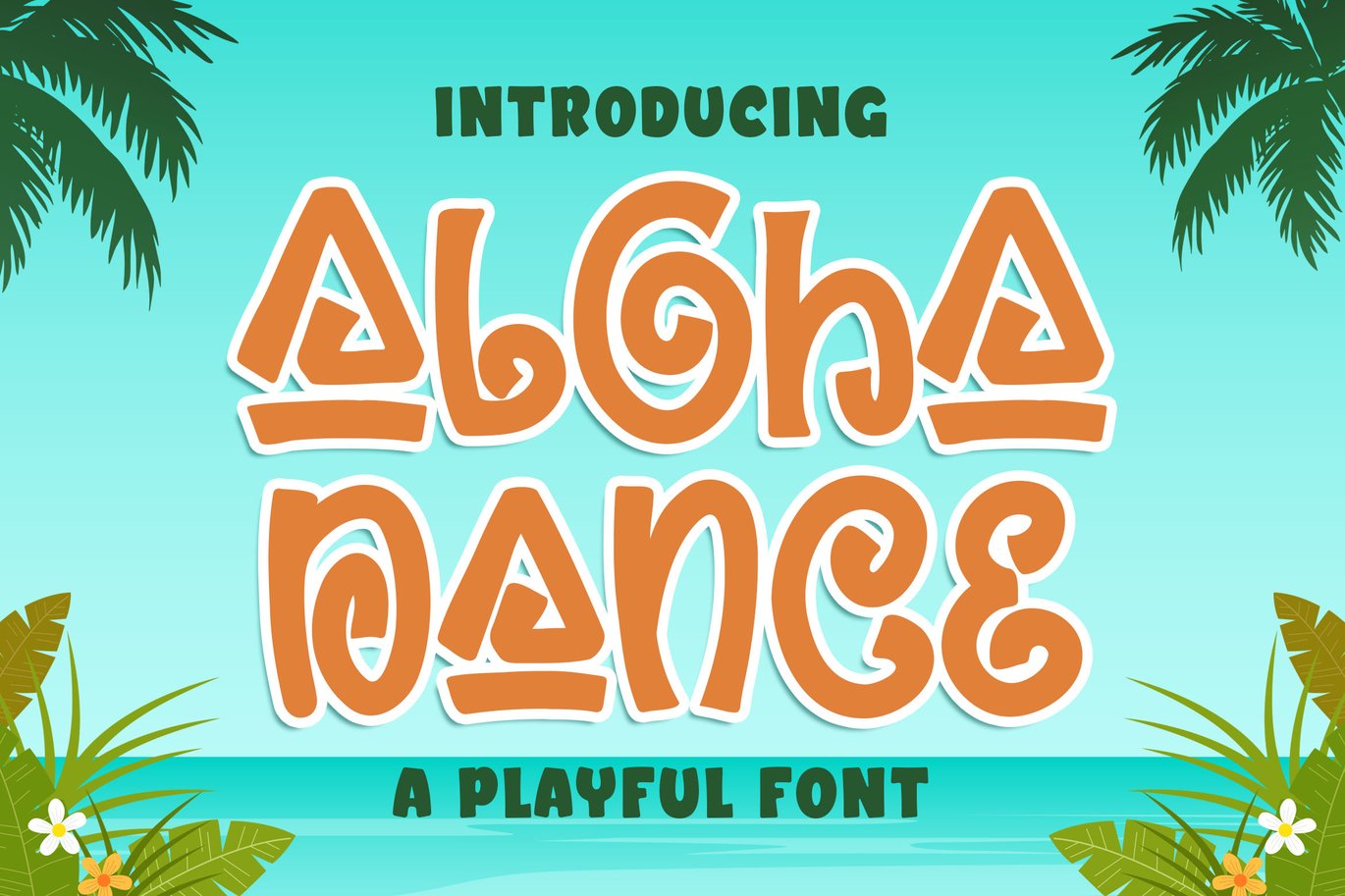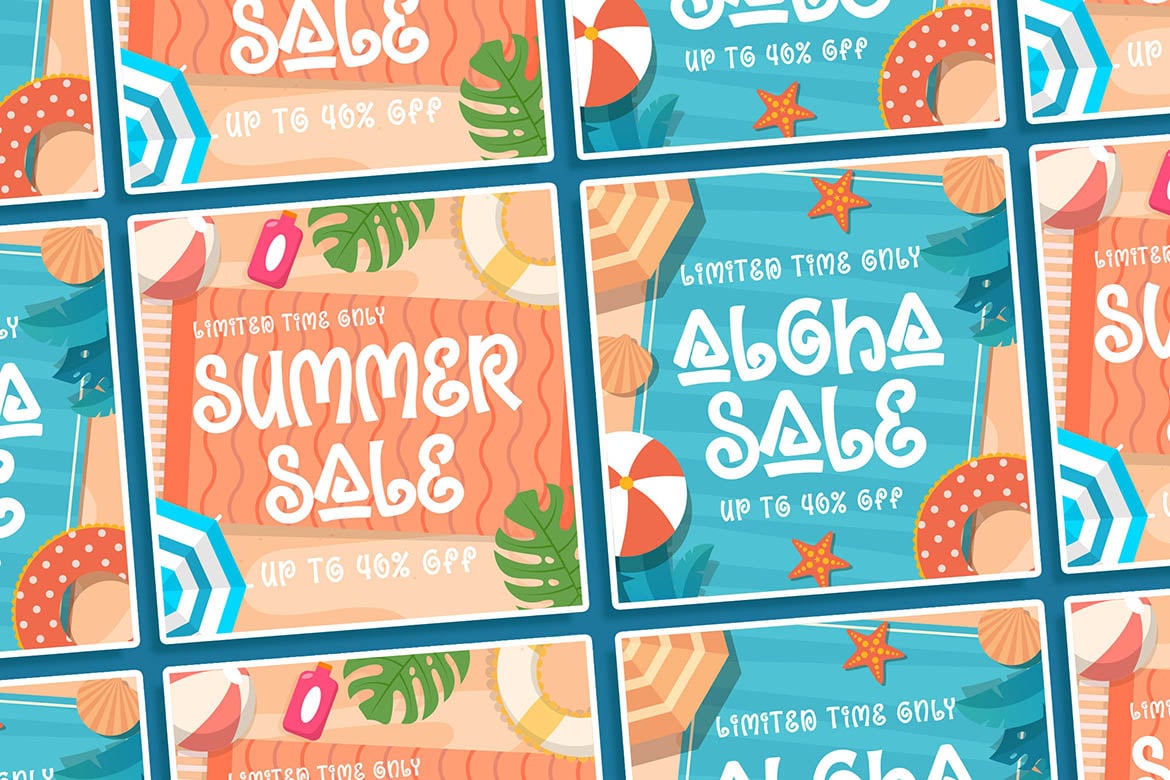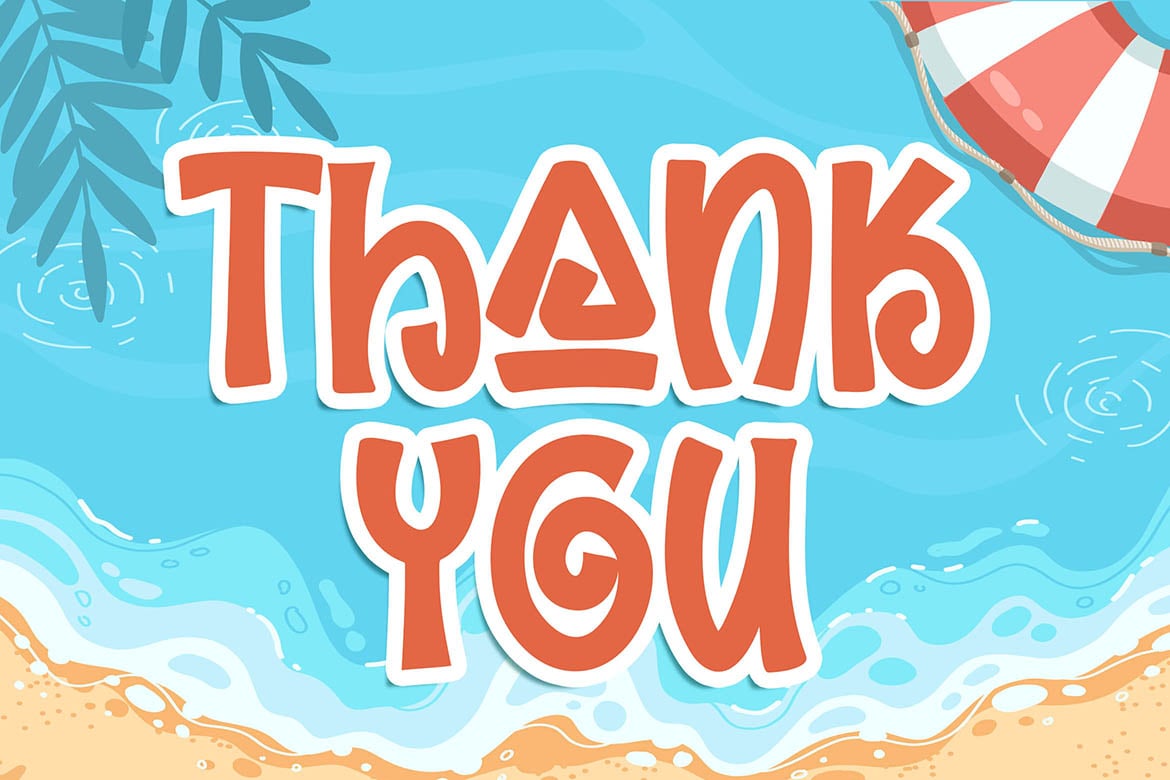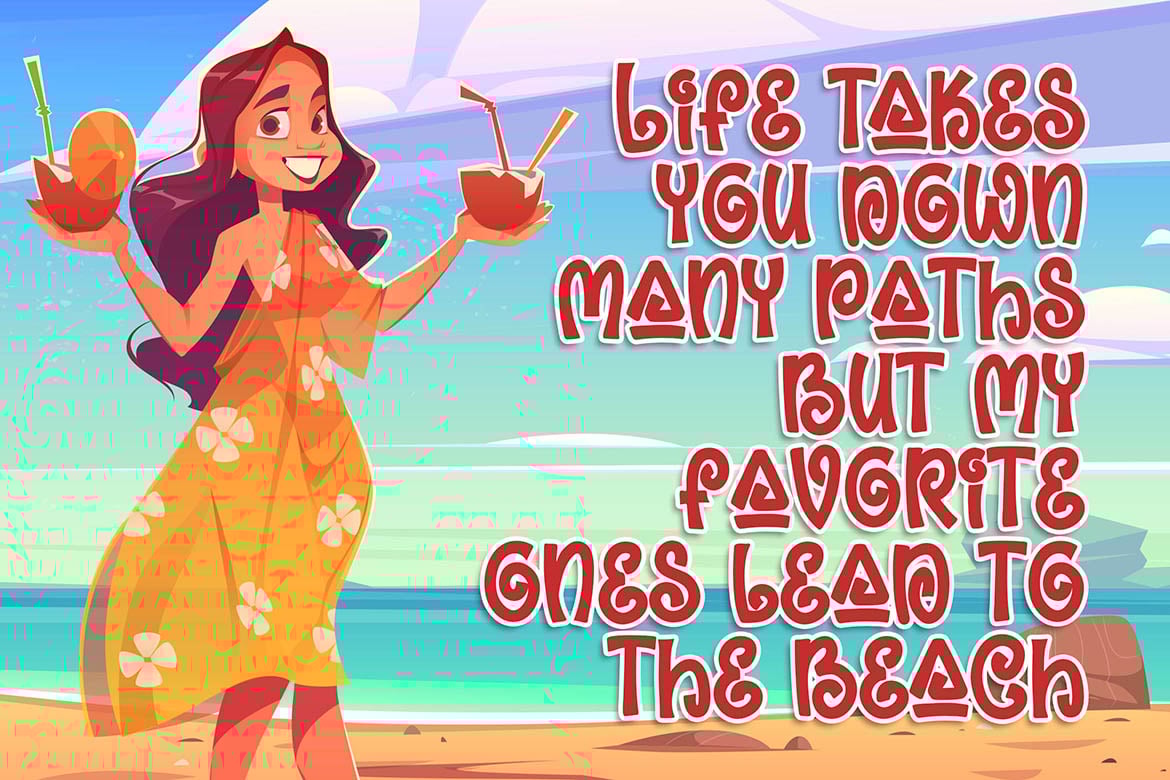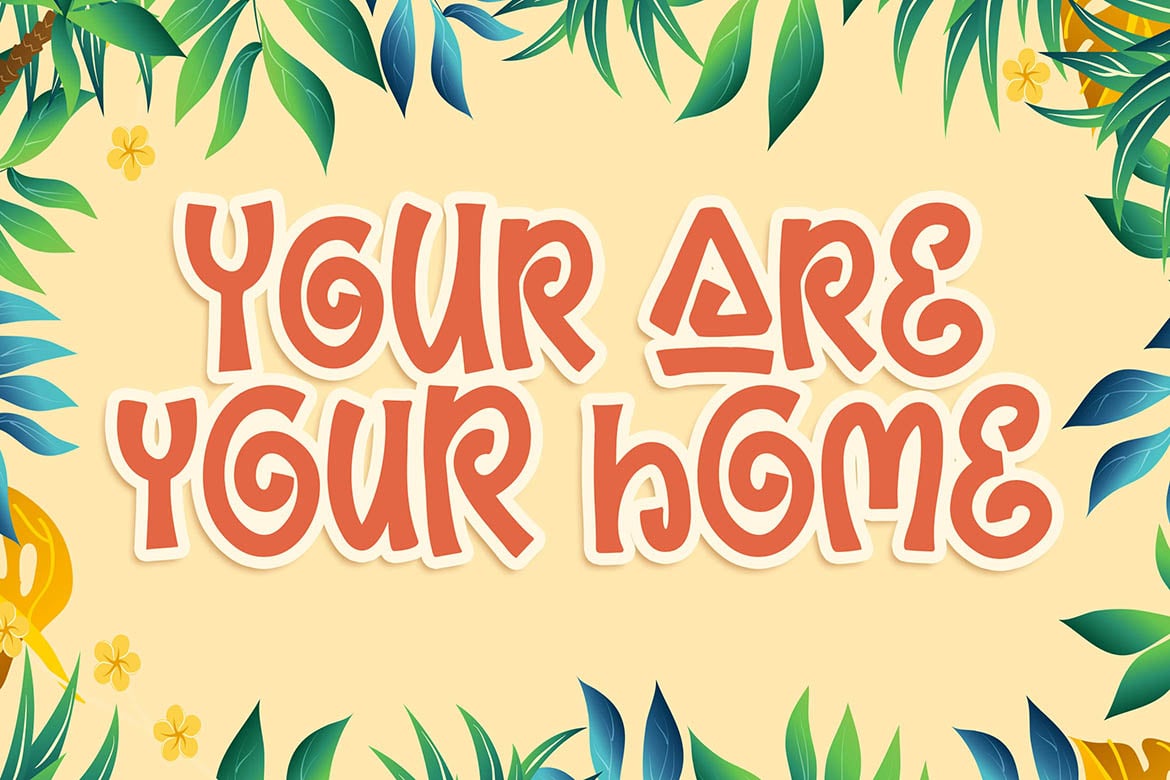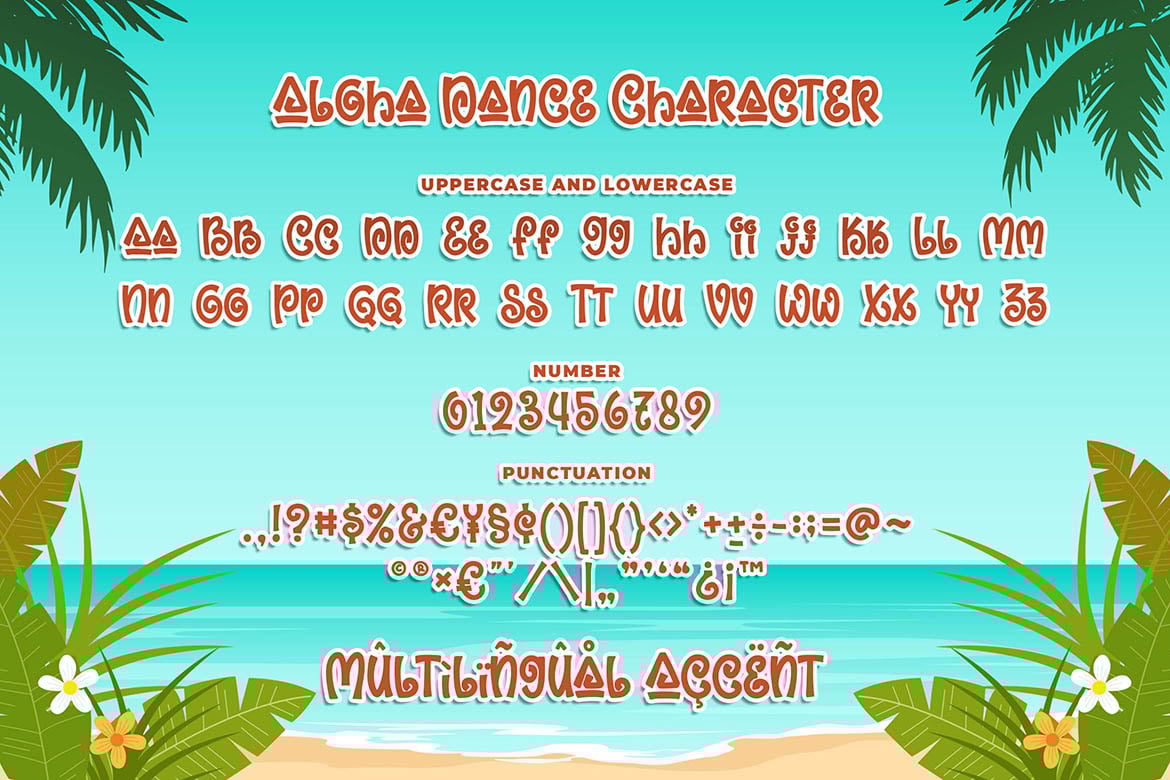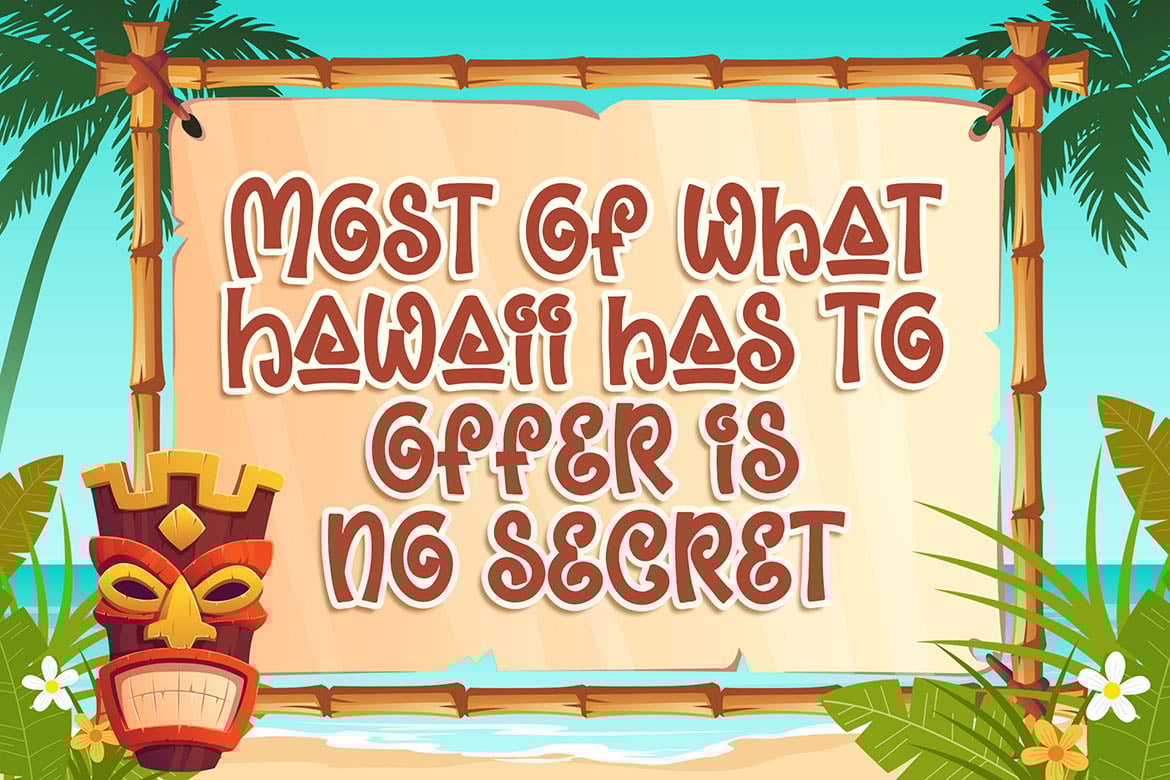
Aloha Dance a Quirky and Playful Font
Introducing of our new product the name is Aloha Dance a Quirky and Playful Font, Aloha Dance inspired by Playful style with a fun theme very good for tropical, kids and playful theme design.